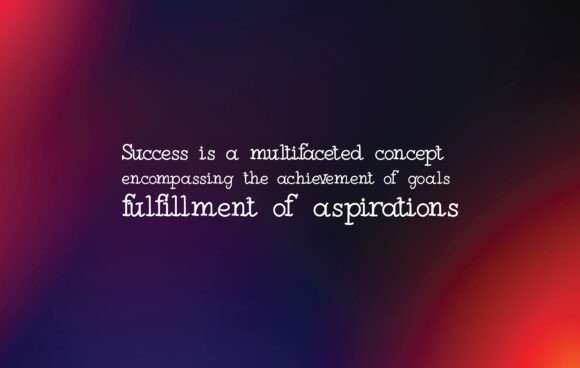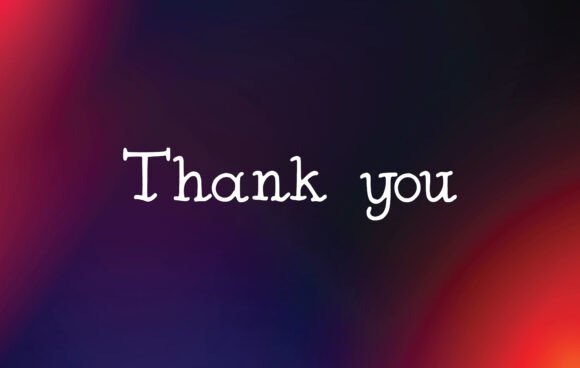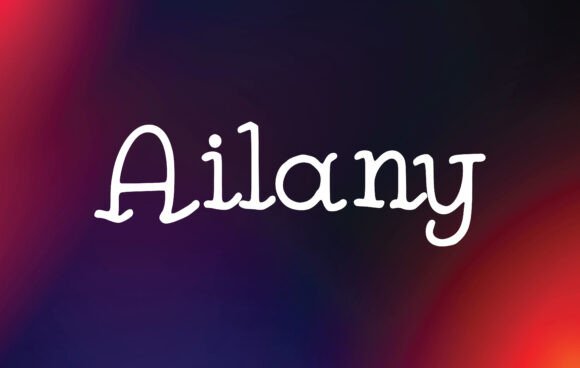
Ailany Font: Elevate Your Creative Projects with this Lovely Handwritten Font
Are you a designer, craftsperson, or creative enthusiast looking for a font that can take your projects to the next level? Look no further than Ailany Font, a beautiful and lovely handwritten font that is sure to impress. With its unique and elegant style, Ailany Font has the potential to elevate your creative ideas and make them shine.
What Makes Ailany Font So Special?
Ailany Font is a carefully crafted handwritten font that boasts a distinctive and charming style. Its beautiful curves, flowing lines, and delicate strokes make it perfect for creating eye-catching logos, branding materials, and quotes. Whether you’re working on a personal project or a client’s, Ailany Font is sure to bring a touch of elegance and sophistication to your design.
The Perfect Choice for Designers and Crafters
As a designer or crafter, you know how important it is to have a font that can help you stand out from the crowd. Ailany Font is the perfect choice for anyone looking to add a personal touch to their projects. Its unique style and versatility make it suitable for a wide range of applications, from logo design and branding to crafting and DIY projects.
Key Features of Ailany Font
- Beautiful Handwritten Style: Ailany Font features a lovely handwritten style that is both elegant and charming.
- Unique and Distinctive: Its unique curves and flowing lines make Ailany Font stand out from other fonts.
- Versatile: Ailany Font is suitable for a wide range of applications, from logo design and branding to crafting and DIY projects.
- Easily Readable: Despite its elegant style, Ailany Font is easily readable, making it perfect for body text and quotes.
Inspiration and Ideas for Using Ailany Font
Need some inspiration for using Ailany Font in your projects? Here are a few ideas to get you started:
- Logo Design: Use Ailany Font to create a unique and memorable logo for your business or brand.
- Branding Materials: Add a touch of elegance to your branding materials, such as business cards, brochures, and letterheads.
- Quotes and Typography: Use Ailany Font to create beautiful and eye-catching quotes and typography.
- Crafting and DIY Projects: Add a personal touch to your crafting and DIY projects, such as handmade cards, gift tags, and decorations.
In conclusion, Ailany Font is a beautiful and lovely handwritten font that has the potential to take your creative ideas to the highest level. Its unique and elegant style makes it perfect for creating eye-catching logos, branding materials, and quotes. Whether you’re a designer, crafter, or creative enthusiast, Ailany Font is sure to be a valuable addition to your font collection.